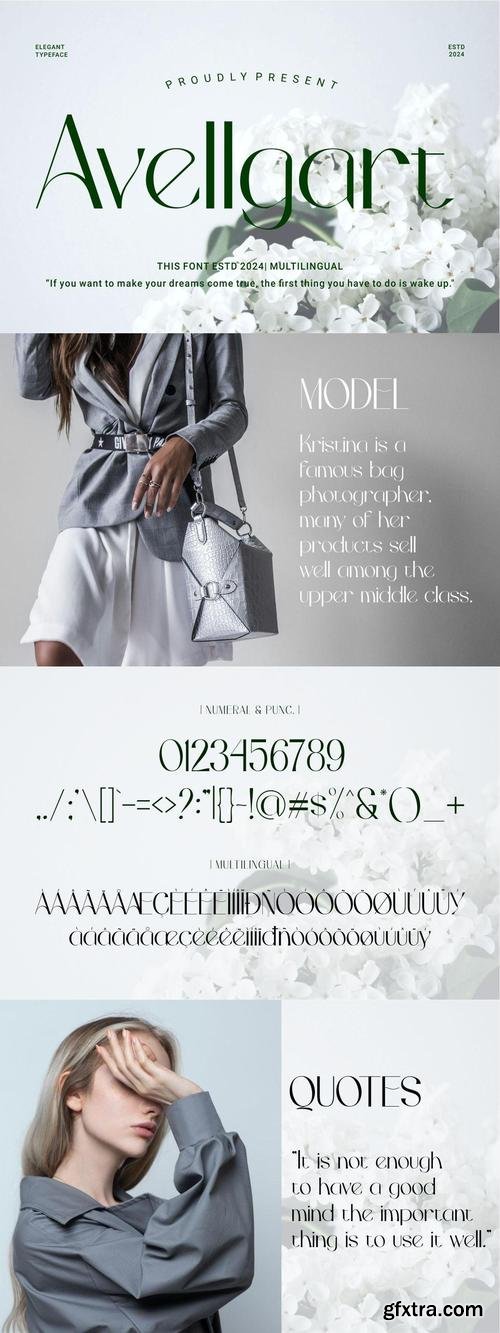
Introducing our new product Avellgart - Elegant Typeface Font Modern Font
Avellgart - Elegant Typeface Font - Modern Font is a bold and authentic display font. The font is suitable for any branding project like logo, t-shirt printing, esport, and many more. outstanding in a wide range of contexts.
- Uppercase
- lowercase
- Multilingual
- alternatife